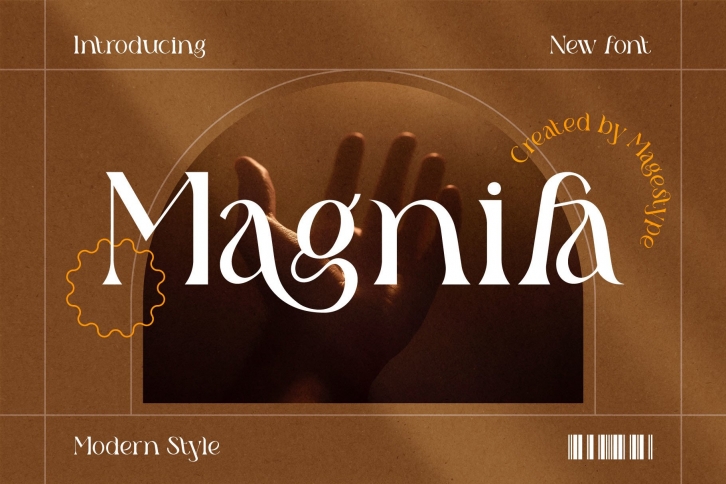
Magnifa is a modern and elegant serif font. Fall for its ravishing style and use it to create gorgeous wedding invitations, beautiful stationary art, eye-catching social media posts, and much more!Â